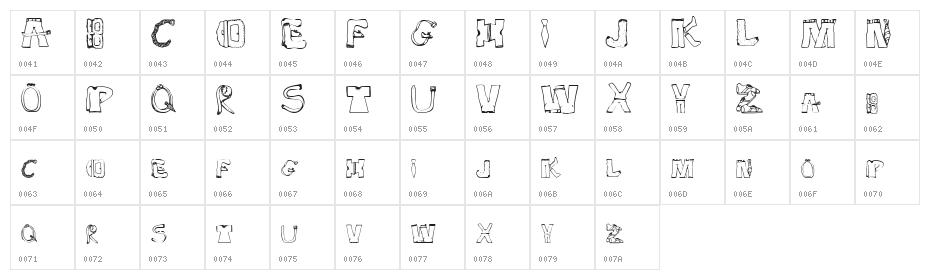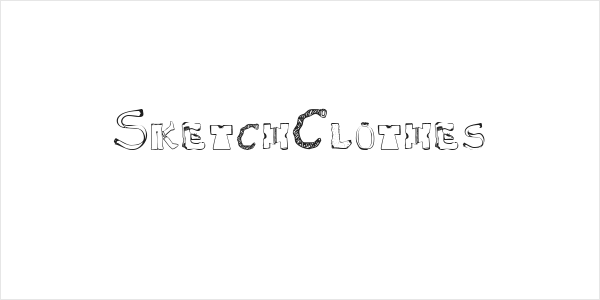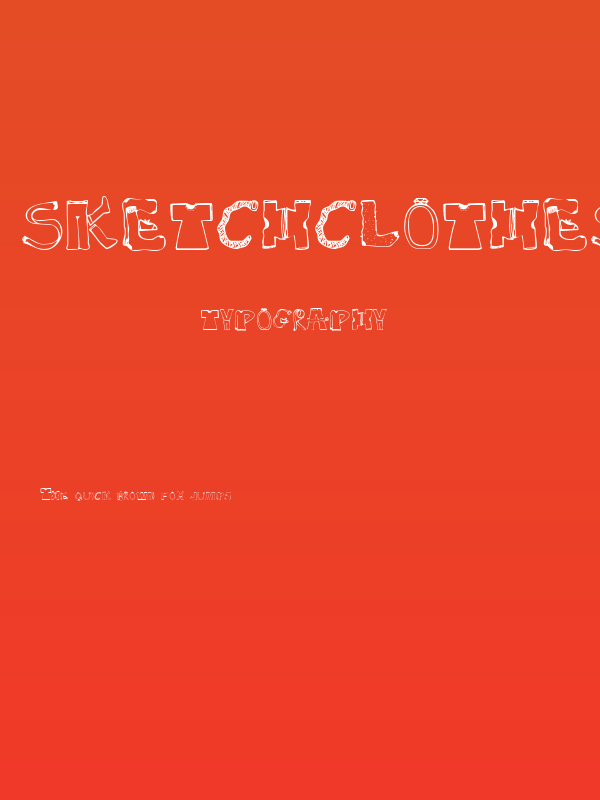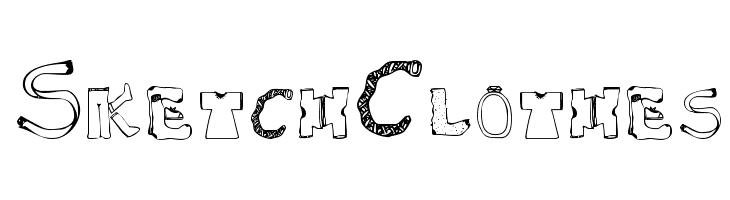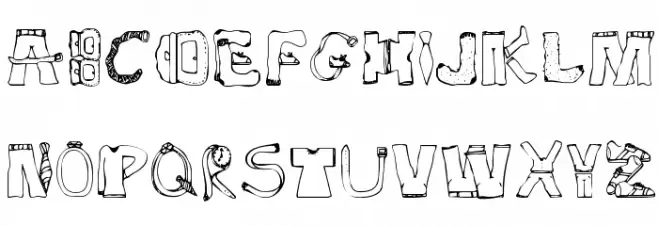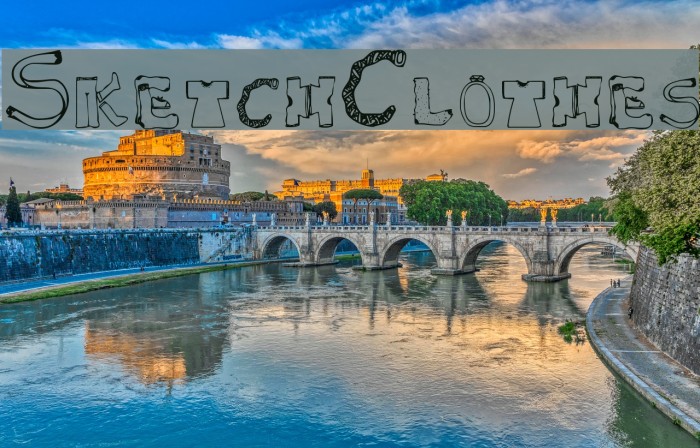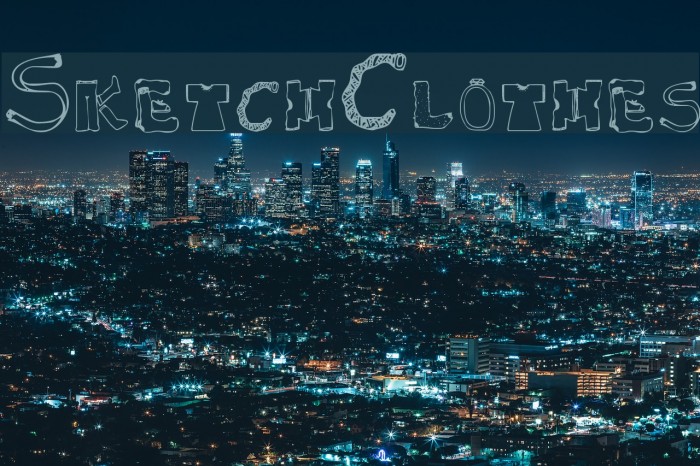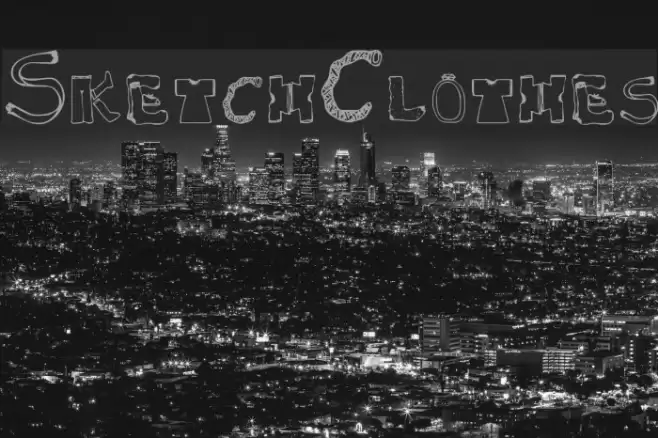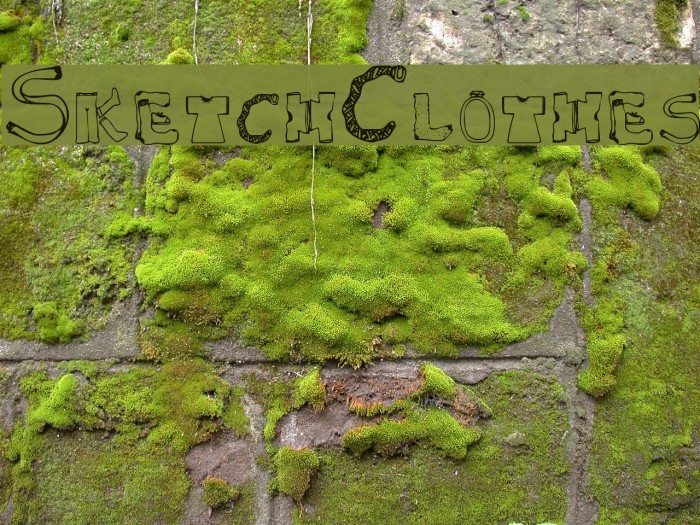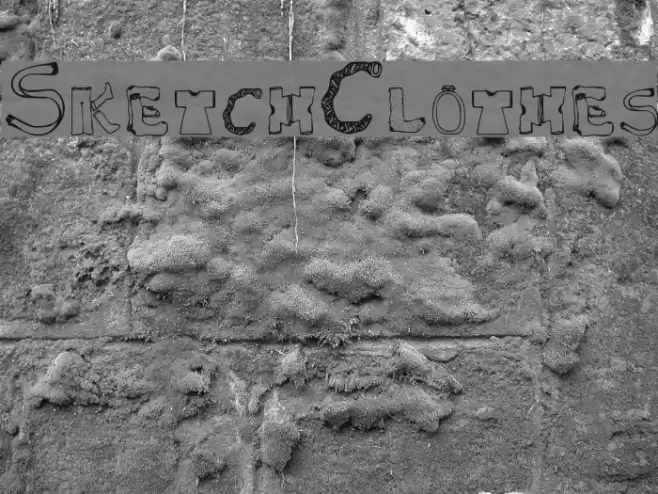
SketchClothes Font
SketchClothes Description
This font features a playful and whimsical design, with each character resembling a piece of clothing or fabric. The letters are creatively styled to mimic various textures and patterns, such as stitches, buttons, and seams, giving them a unique, hand-drawn appearance. The overall look is casual and fun, making it ideal for projects that require a light-hearted and imaginative touch. The font's decorative nature makes it stand out, with each letter offering a distinct visual element that captures attention.
| Overall Style | Whimsical, Playful |
| Proposed Projects | Ideal for children's book covers, fashion-themed posters, playful branding, and creative invitations. |